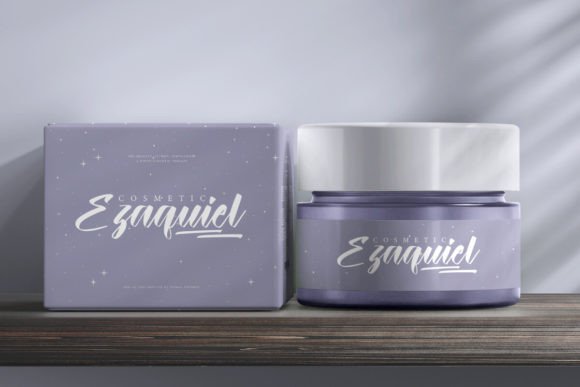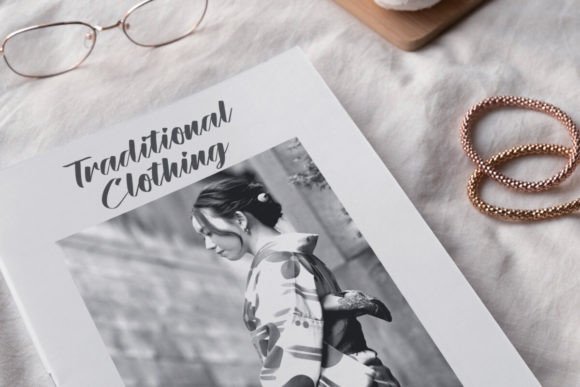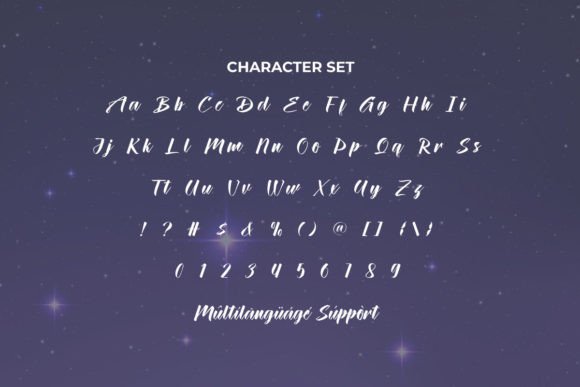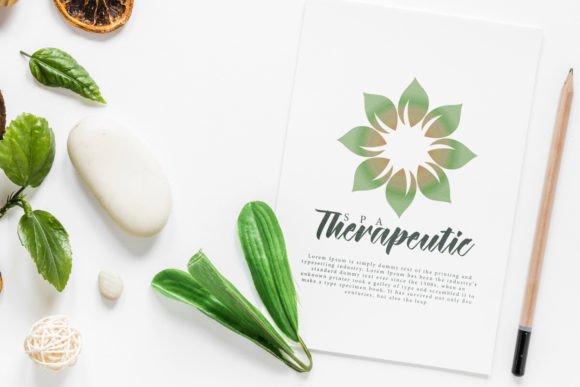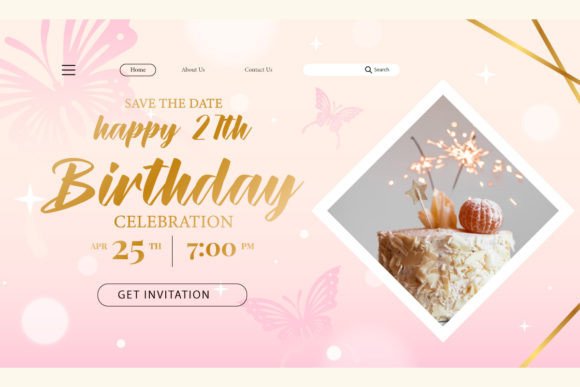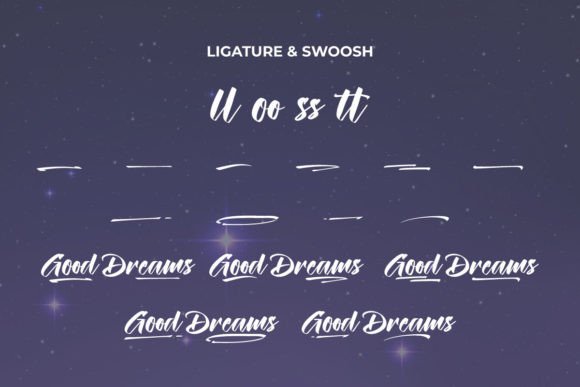
Introducing Good Dreams Font: The Perfect Script Font for Your Creative Projects
Are you a designer or crafter looking for a beautiful script font to elevate your creative projects? Look no further than Good Dreams Font, a stunning calligraphy-style font that is sure to impress. With its bold lines and elegant connections, Good Dreams Font is the perfect choice for a wide range of industries and applications.
What Makes Good Dreams Font So Special?
Good Dreams Font is a beautiful script font that features bold lines that connect beautifully, making it easy to read and visually appealing. The font’s calligraphy style gives it a touch of elegance and sophistication, making it perfect for projects that require a high level of creativity and style.
One of the standout features of Good Dreams Font is its versatility. With its great appearance and easy-to-read design, it is suitable for a wide range of industries, including:
- Event or wedding organizer
- Fashion
- Florist
- Homeware
- Jewelry
- Perfume
- Printing
- Publishing
- Restaurant
- Salon and spa
Why Choose Good Dreams Font for Your Projects?
There are many reasons why Good Dreams Font is the perfect choice for your creative projects. Here are just a few:
- Elegant and sophisticated design: Good Dreams Font features a beautiful calligraphy-style design that is sure to impress your clients and audience.
- Easy to read: Despite its bold lines and elegant connections, Good Dreams Font is easy to read, making it perfect for projects that require a high level of legibility.
- Versatile: Good Dreams Font is suitable for a wide range of industries and applications, making it a great addition to your font library.
- High-quality: Good Dreams Font is a high-quality font that is designed to deliver exceptional results, whether you’re working on a print or digital project.
How to Use Good Dreams Font in Your Projects
Using Good Dreams Font in your projects is easy. Here are a few tips to get you started:
- Pair it with other fonts: Good Dreams Font pairs well with other fonts, so feel free to experiment with different combinations to find the perfect look for your project.
- Use it for headings and titles: Good Dreams Font is perfect for headings and titles, where its bold lines and elegant connections can really make an impact.
- Experiment with different colors: Good Dreams Font looks great in a variety of colors, so don’t be afraid to experiment and find the perfect color scheme for your project.
In conclusion, Good Dreams Font is a beautiful script font that is perfect for designers and crafters looking to elevate their creative projects. With its elegant and sophisticated design, easy-to-read lines, and versatility, Good Dreams Font is sure to become a staple in your font library. So why wait? Download Good Dreams Font today and start creating stunning projects that will leave a lasting impression on your clients and audience.
Whether you’re working on a wedding invitation, a fashion brochure, or a restaurant menu, Good Dreams Font is the perfect choice. Its great appearance and easy-to-read design make it suitable for a wide range of industries and applications, and its high-quality design ensures that it will deliver exceptional results every time.
So why settle for a boring, generic font when you can use Good Dreams Font to add a touch of elegance and sophistication to your projects? Download Good Dreams Font today and start creating beautiful, eye-catching designs that will leave a lasting impression on your clients and audience.